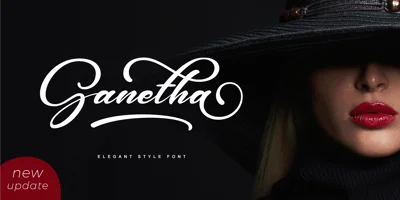
Ganetha Font
Ganetha Font excels in spiritual design applications including Hindu temple communications, yoga studio branding, meditation center materials, spiritual retreat promotions, Indian cultural festivals, sacred art exhibitions, wellness sanctuary signage, spiritual book publications, mantra meditation guides, and divine lifestyle campaigns. This sacred typeface brings authentic spiritual character to devotional design projects.
What makes Ganetha Font truly exciting is its perfect embodiment of divine wisdom with graceful letterforms that evoke the blessed presence of Lord Ganesha through sacred design elements. The font features spiritually crafted characters with divine proportions and sacred elegance that convey wisdom, prosperity, and the transformative power of spiritual devotion. Its divine personality and sacred character make it ideal for brands celebrating Hindu spirituality, meditation practices, and audiences who appreciate ancient wisdom, spiritual growth, and the profound connection between divine consciousness and earthly existence through devotional practice.
The Ganetha Font family typically includes Regular weight with potential sacred flourishes and spiritual elements that enhance its divine character. These blessed options provide designers with complete spiritual styling while maintaining the font's distinctive sacred elegance and devotional presentation across various spiritual applications and Hindu cultural contexts.
Whether you're developing spiritual center branding, creating devotional campaigns, or designing sacred materials, Ganetha Font delivers the divine authority and spiritual sophistication that sacred projects require. Its exceptional sanctity and spiritual appeal make it invaluable for designers working with spiritual organizations, yoga centers, and devotional brands requiring typography that honors Hindu tradition, celebrates divine wisdom, and reflects the sacred journey of spiritual seekers who find guidance, prosperity, and inner peace through the blessed teachings and divine protection of Lord Ganesha, the remover of obstacles and patron of arts and sciences.